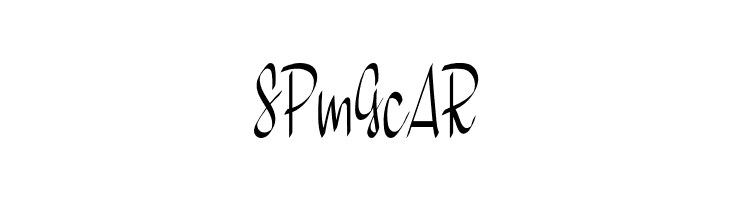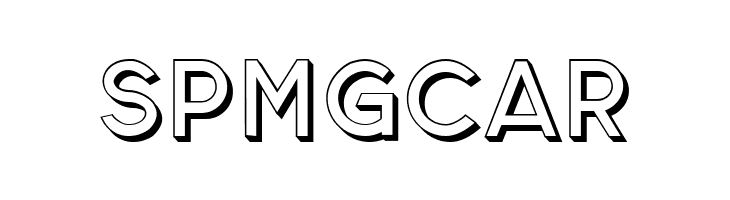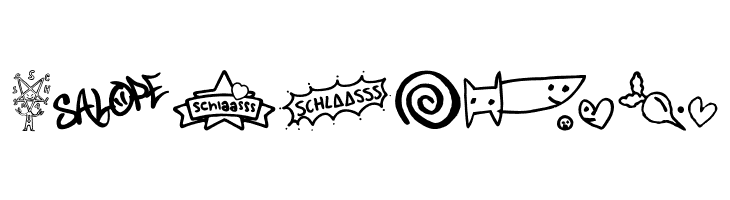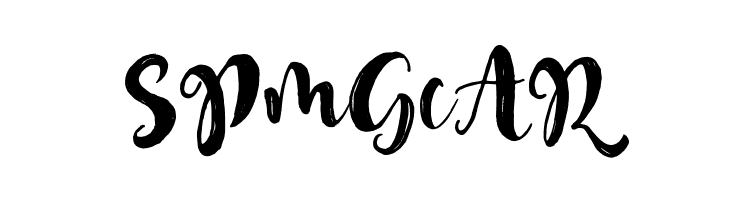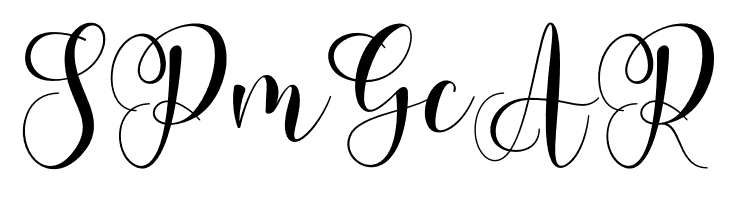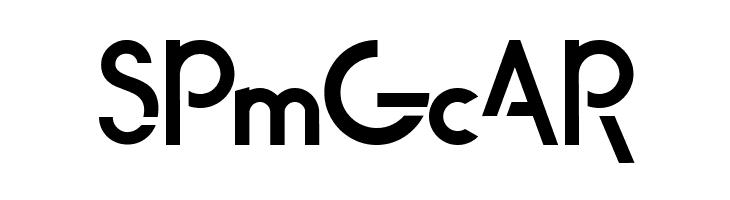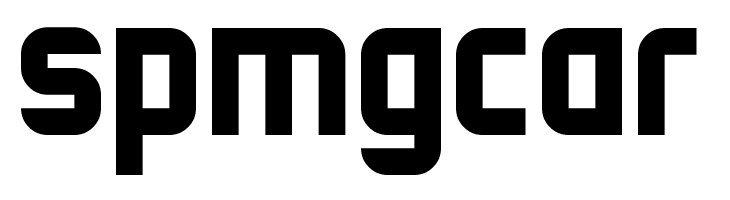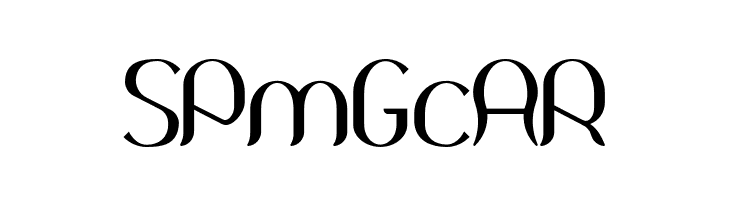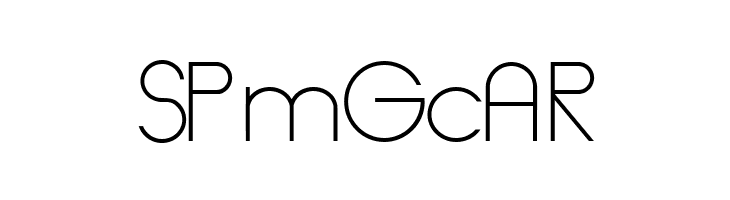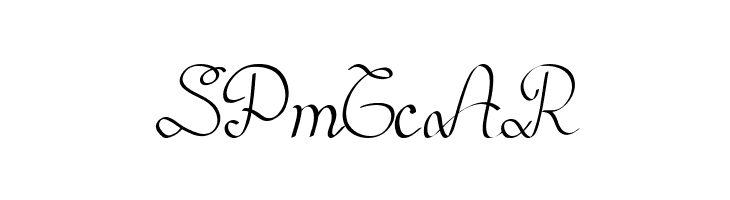
A playful, handwritten script font with dynamic strokes and a lively appearance.
A bold, geometric font with a three-dimensional outline effect.
A whimsical, hand-drawn dingbat font with cartoonish illustrations and playful text.
A bold, expressive script font with a hand-drawn, calligraphic style.
A graceful script font with elegant loops and flourishes, perfect for decorative use.
A bold, geometric font with a modern and impactful design.
A modern, decorative font with flowing curves and sharp edges, perfect for artistic projects.
A modern, geometric font with clean lines and a minimalistic style.
An elegant, flowing script font with decorative flourishes.